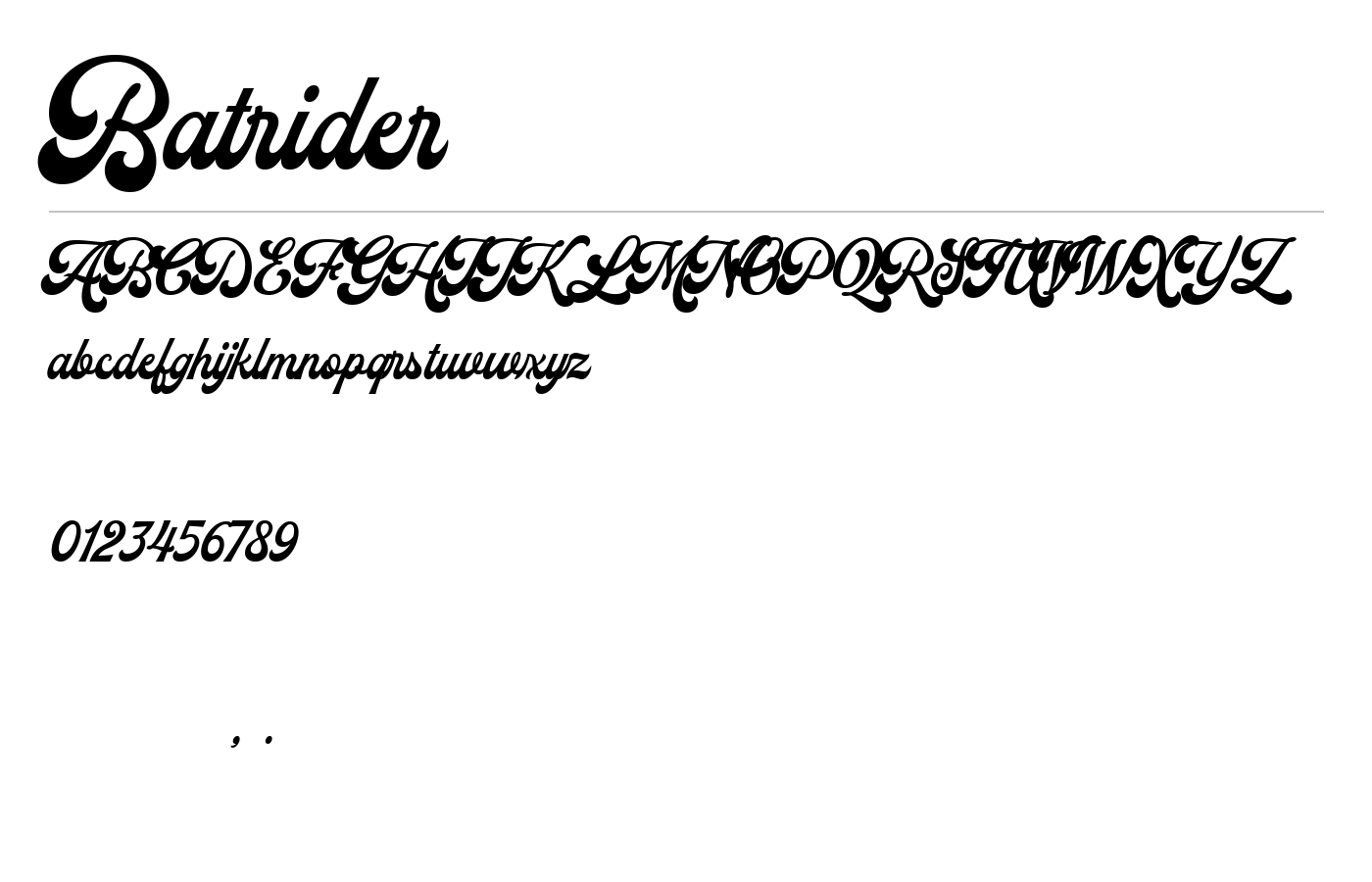
Batrider is a bold, script-style font with elegant, flowing letterforms that combine thick and thin strokes for a classic, vintage feel. Its strong contrasts and smooth curves give it a luxurious and refined personality, making it ideal for logos, packaging, and branding that aim to evoke sophistication and charm. This font works well in display settings where a stylish, eye-catching script is needed to make a memorable impression.
Batrider Font
About Batrider Font